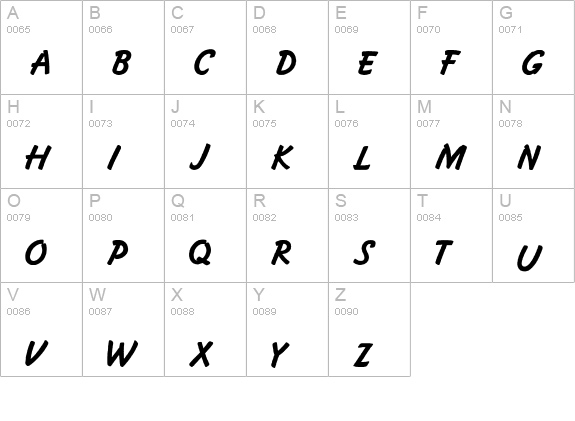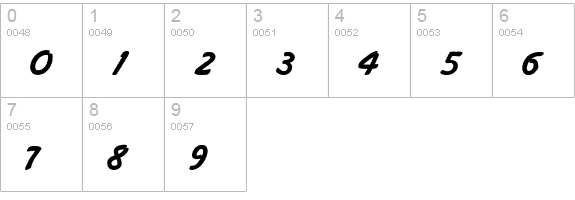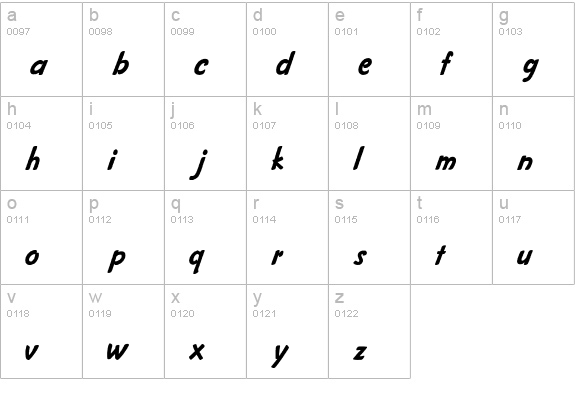
Crusiee-Normal is the standard, neutral variant in the Crusiee typeface family \xE2\x80\x94 well suited to general body text, paragraphs, and standard typographic work.
Crusiee-Normal font is a versatile and modern typeface that combines elegance with readability. With its clean lines and balanced proportions, this font is perfect for a wide range of design projects, from branding to editorial design. The Crusiee-Normal font exudes a sense of sophistication and professionalism, making it ideal for both print and digital applications. One of the best features of Crusiee-Normal font is that it is available for free download at FontsMarket.com. This means that you can easily access this high-quality font without any cost, making it a valuable addition to your font library. Whether you are a designer looking for a new typeface to elevate your work or a business owner in need of a fresh look for your branding, Crusiee-Normal font is sure to impress with its versatility and style. Download it today and enhance your design projects with this elegant and modern font.